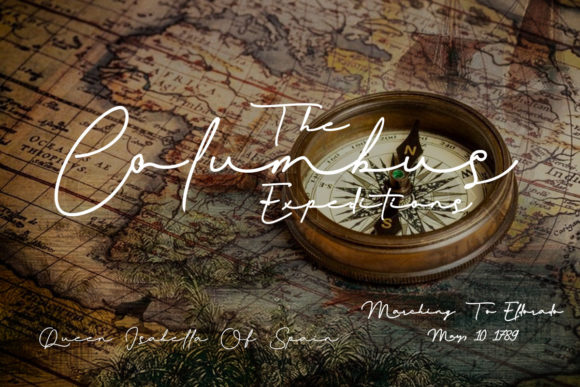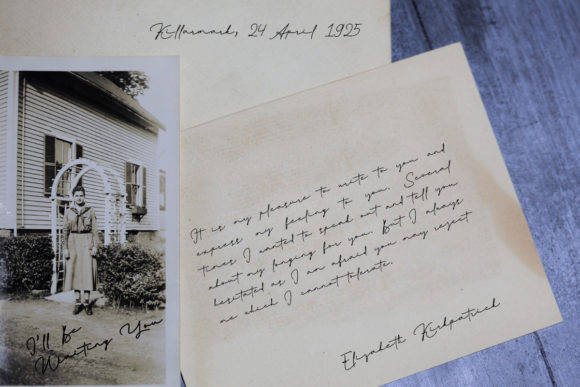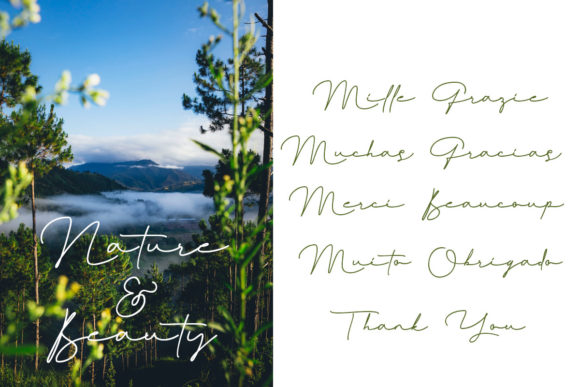
About Marionette Font
Marionette is an incredibly gorgeous script font, designed masterfully to create a highly personal and natural feel. It’s fresh, intimate, and nostalgic, just perfect for wedding invitations, greeting cards, thank you notes, and others.